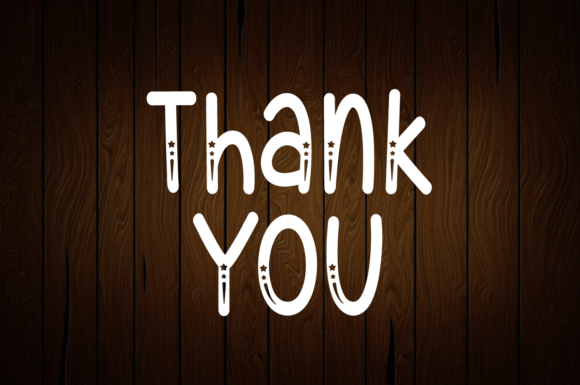
Introduction to House Star Font Font
Fonts play a crucial role in design, and the House Star Font font is a typeface that brings both character and versatility to any project. Whether you’re working on a branding project, a website, or a print design, the House Star Font font offers a unique style that can elevate your work.
House Star is a simple and interesting display font.
Its friendly feel makes this font incredibly versatile, fitting a wide range of contexts It looks stunning on thank you cards, quotes, greeting cards, logos, business cards, and any other design that needs a touch of art.
Key Features of House Star Font Font
Why Choose House Star Font Font?
The House Star Font font is more than just a typeface – it’s a design tool that helps you communicate your message with style and clarity. Its unique character set and versatile design make it suitable for a wide range of applications, from elegant invitations to bold headlines.
With its carefully crafted letterforms and balanced proportions, the House Star Font font ensures readability and visual appeal across all mediums.
What makes House Star Font font special?
The House Star Font font stands out with its unique design, exceptional readability, and versatility across various design applications.